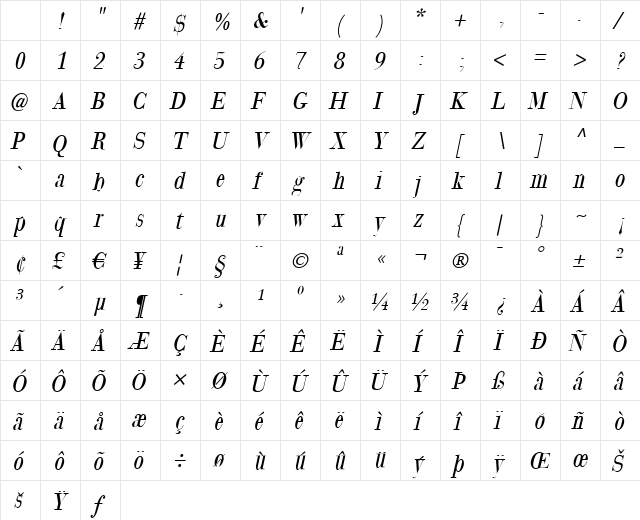
Complete GiambattistaDueMille Medium Italic glyph index. Displaying only characters natively supported by GiambattistaDueMille Medium Italic font.
GiambattistaDueMille is a composed and adaptable typeface that performs quietly and consistently across a wide range of design contexts. The slanted form adds forward momentum and visual energy.
Pro Tip: Use GiambattistaDueMille for emphasis, pull quotes, and subheadings where its slanted energy can add rhythm to the layout.